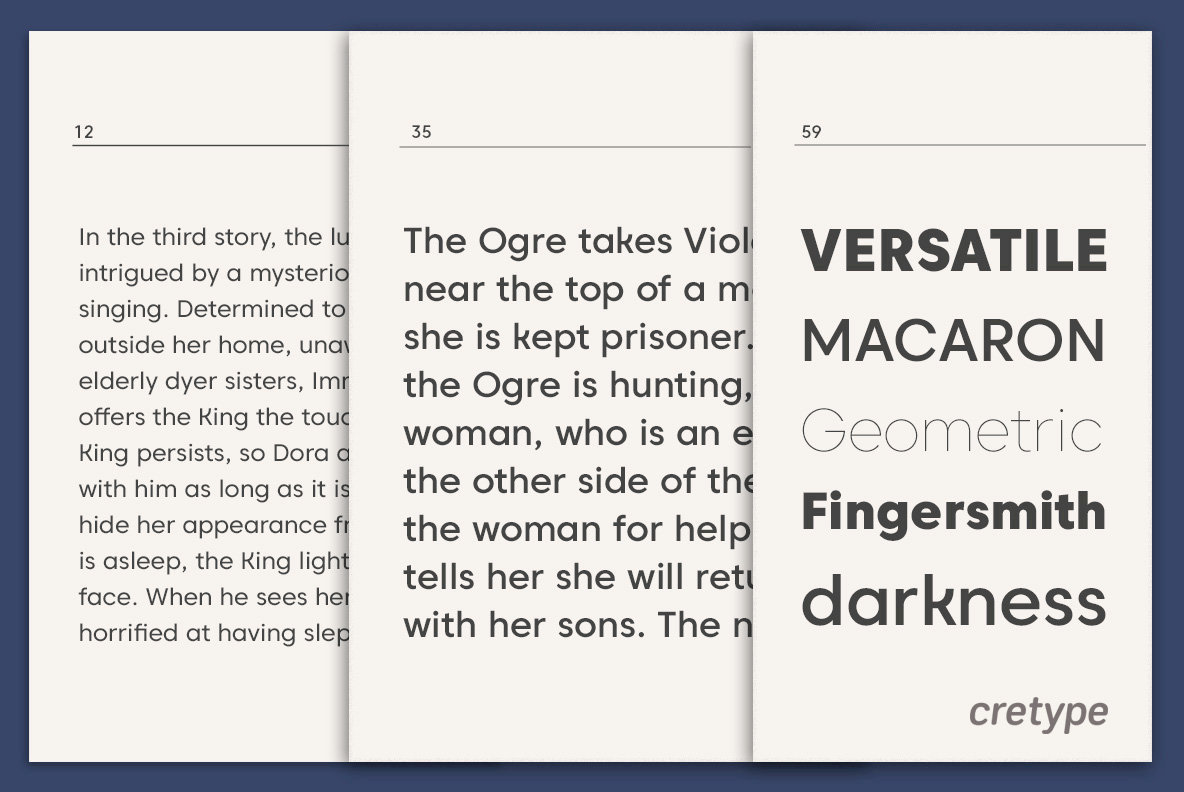
Caros Font
Caros Family is a modern sans-serif typeface that is clean, simple and highly readable. Letters in this type family are designed with geometric shapes without any decorative distractions. The spaces between individual letter forms are precisely adjusted to create the perfect typesetting.
Caros is a versatile type family of 18 fonts. Caros family consists of 9 weights (Thin, ExtraLight, Light, Regular, Medium, Bold, ExtraBold, Heavy & Black) with their corresponding italics.
The OpenType fonts contain complete Latin 1252, Cyrillic, Central European 1250, Turkish 1254 character sets. Each font includes proportional figures, tabular figures, numerators, denominators, superscript, scientific inferiors, subscript, fractions and case features.
We highly recommend it for use in books, web pages, screen displays, and so on.